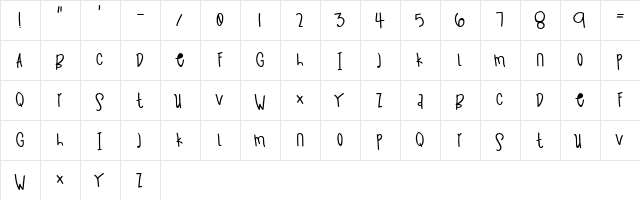
Waffle Regular
Design Context for Waffle Typeface
Waffle is a composed and adaptable typeface that performs quietly and consistently across a wide range of design contexts.